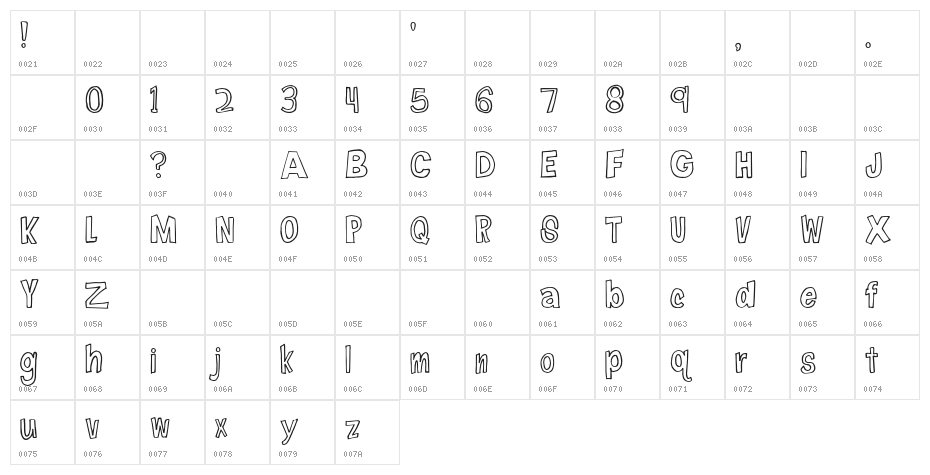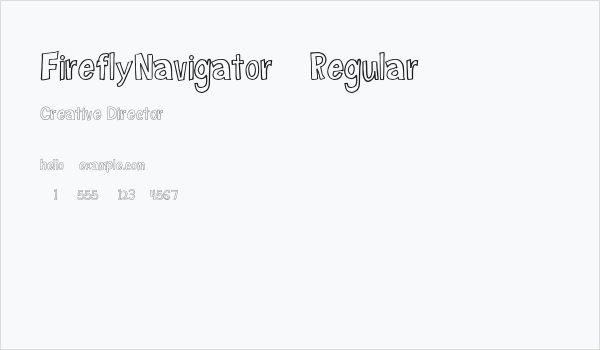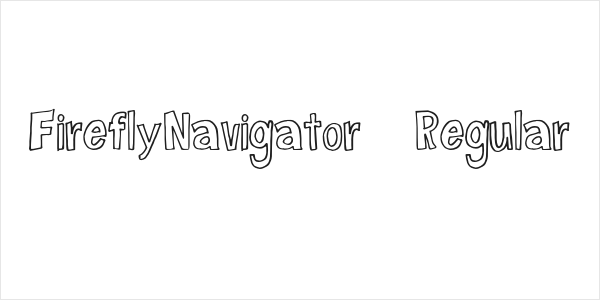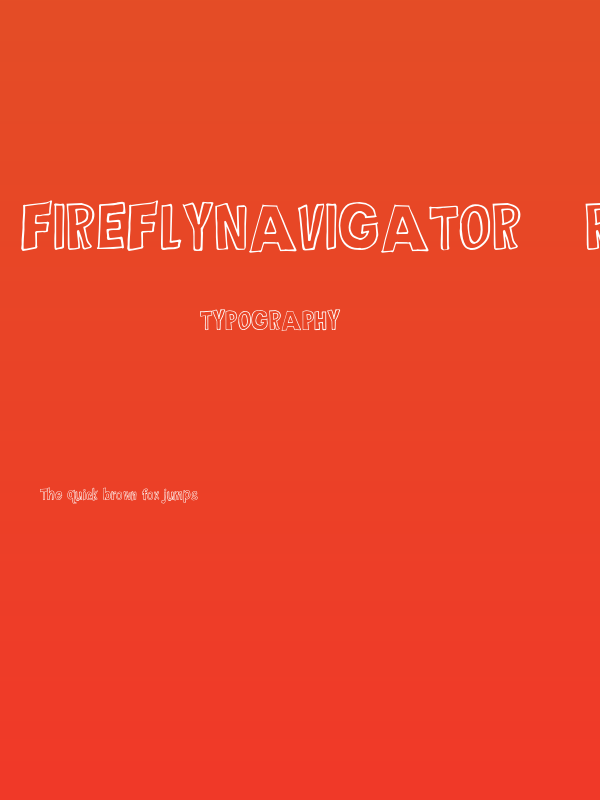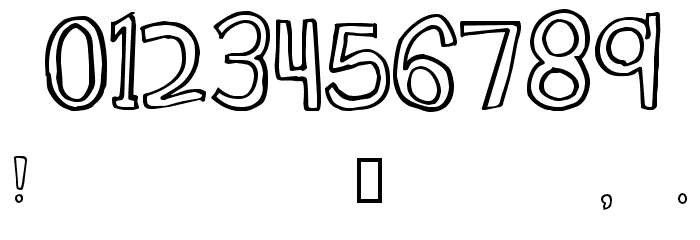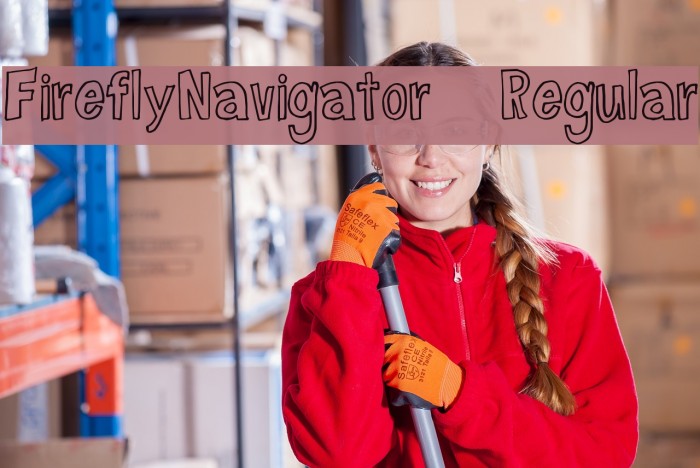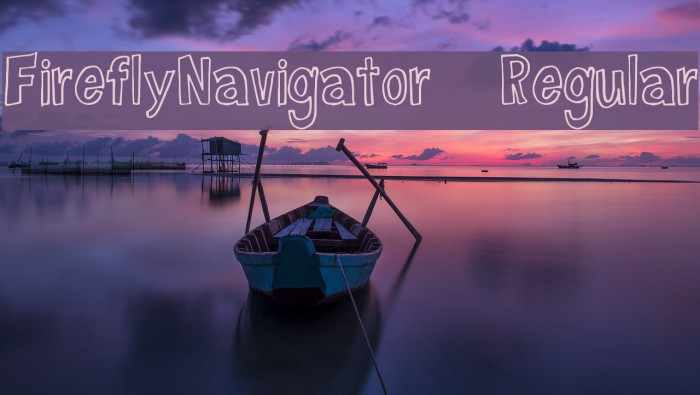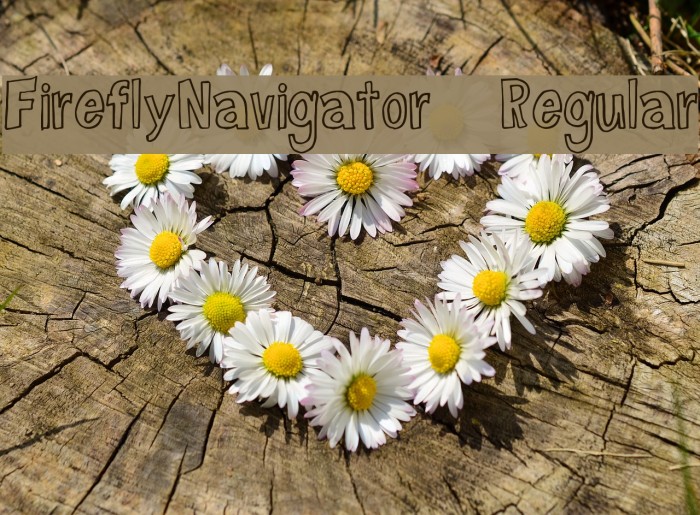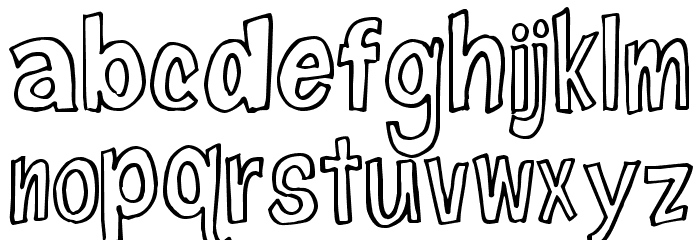
FireflyNavigator-Regular Font
FireflyNavigator-Regular Description
This font features a playful and whimsical style, characterized by its bold, hand-drawn appearance. The letters are outlined with a slightly uneven stroke, giving them a casual and informal look. The uppercase and lowercase letters maintain a consistent style, with rounded edges and a slight tilt, adding to the font's quirky charm. Numbers and special characters follow the same design principles, ensuring a cohesive appearance across all elements. The font's unique style makes it stand out, perfect for projects that require a fun and engaging visual element.
| Proposed Projects | Ideal for children's books, playful branding, posters, and creative invitations. |